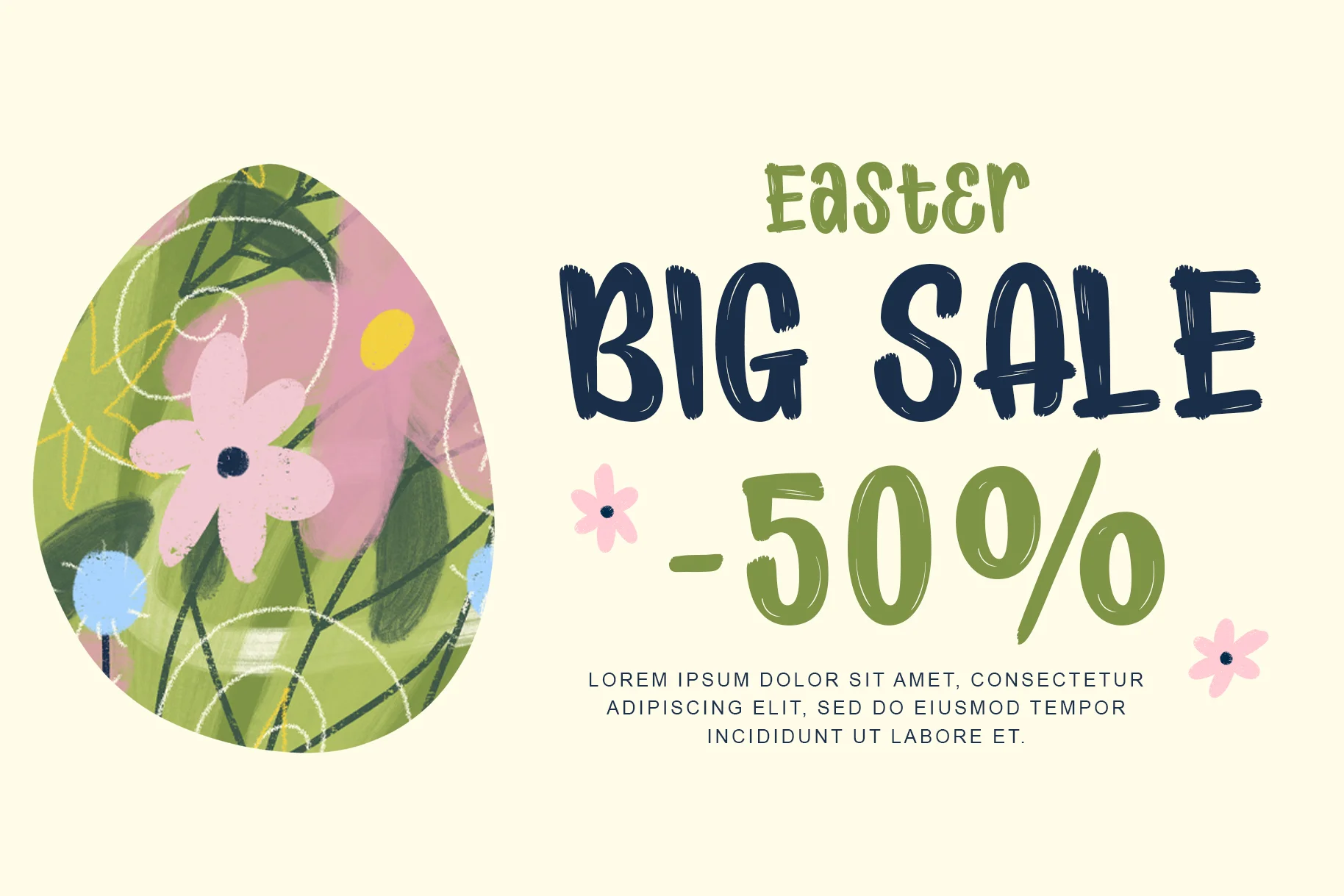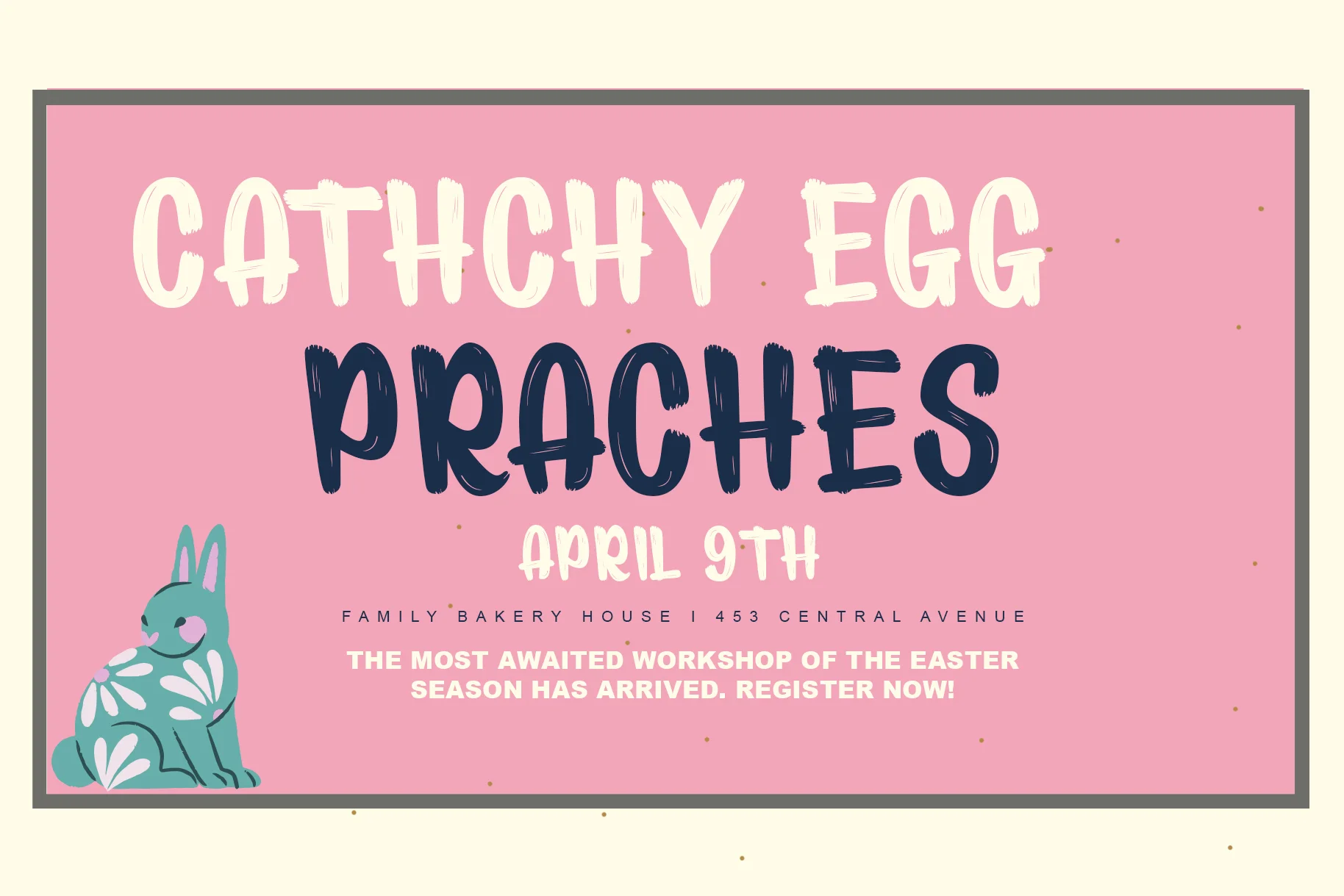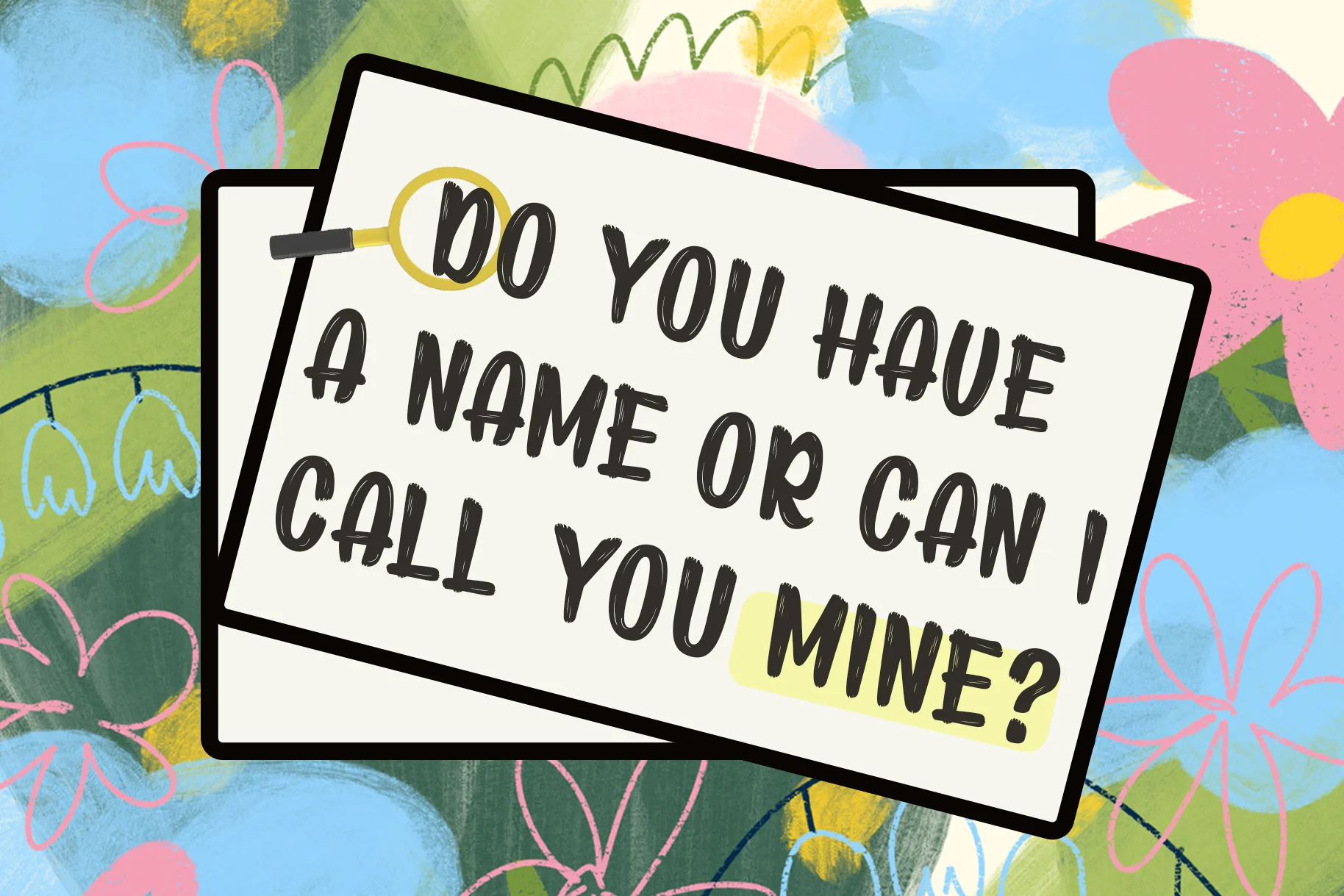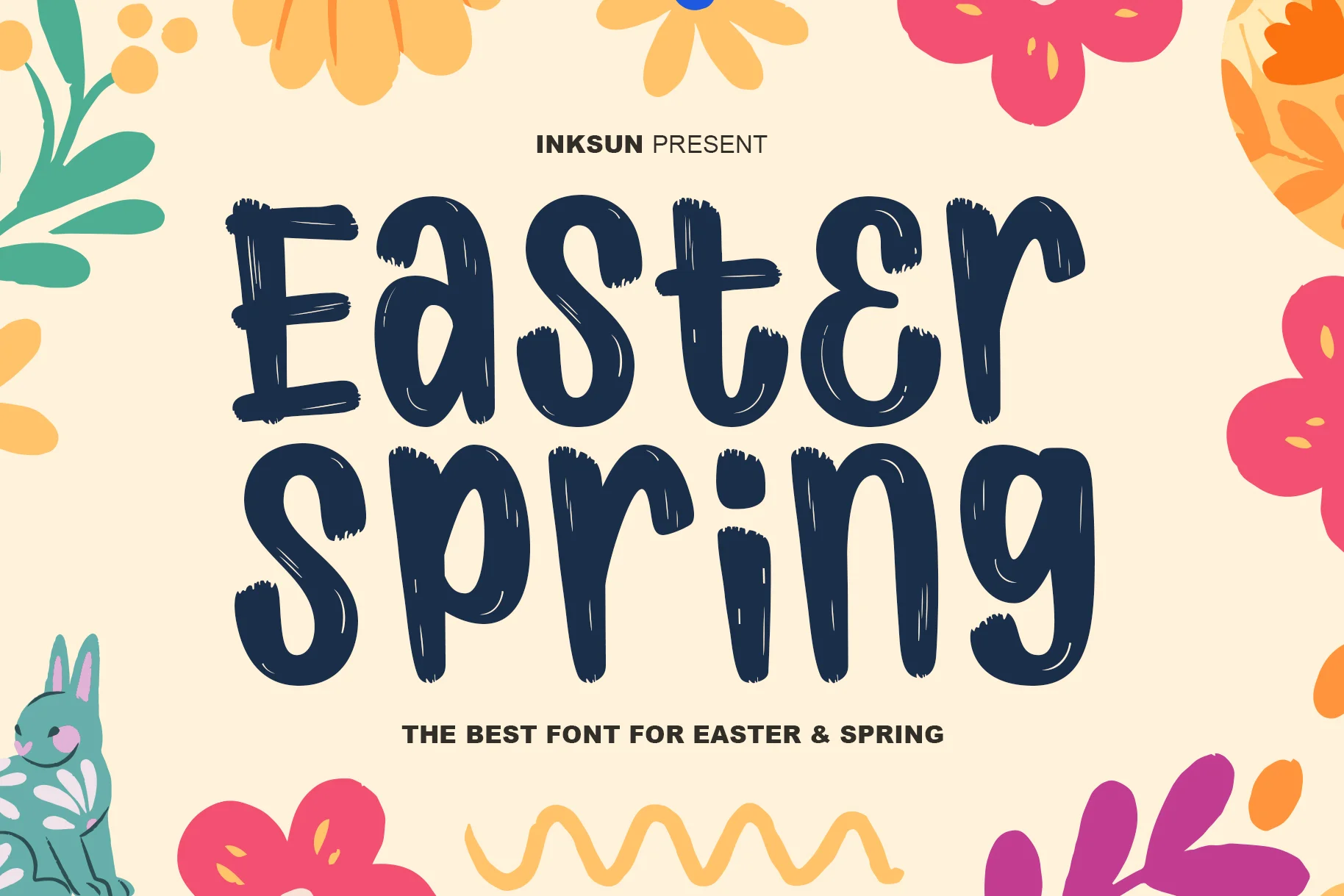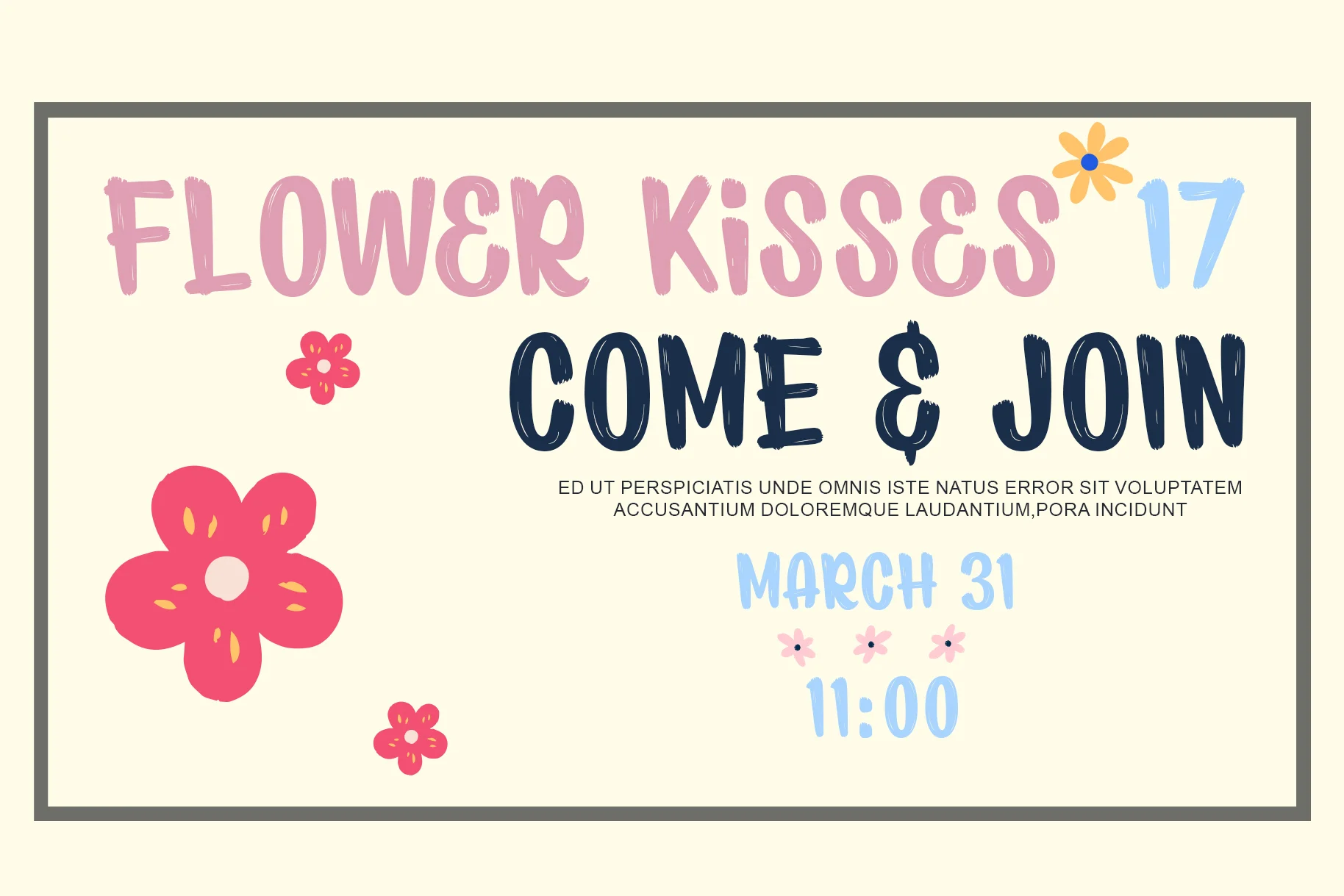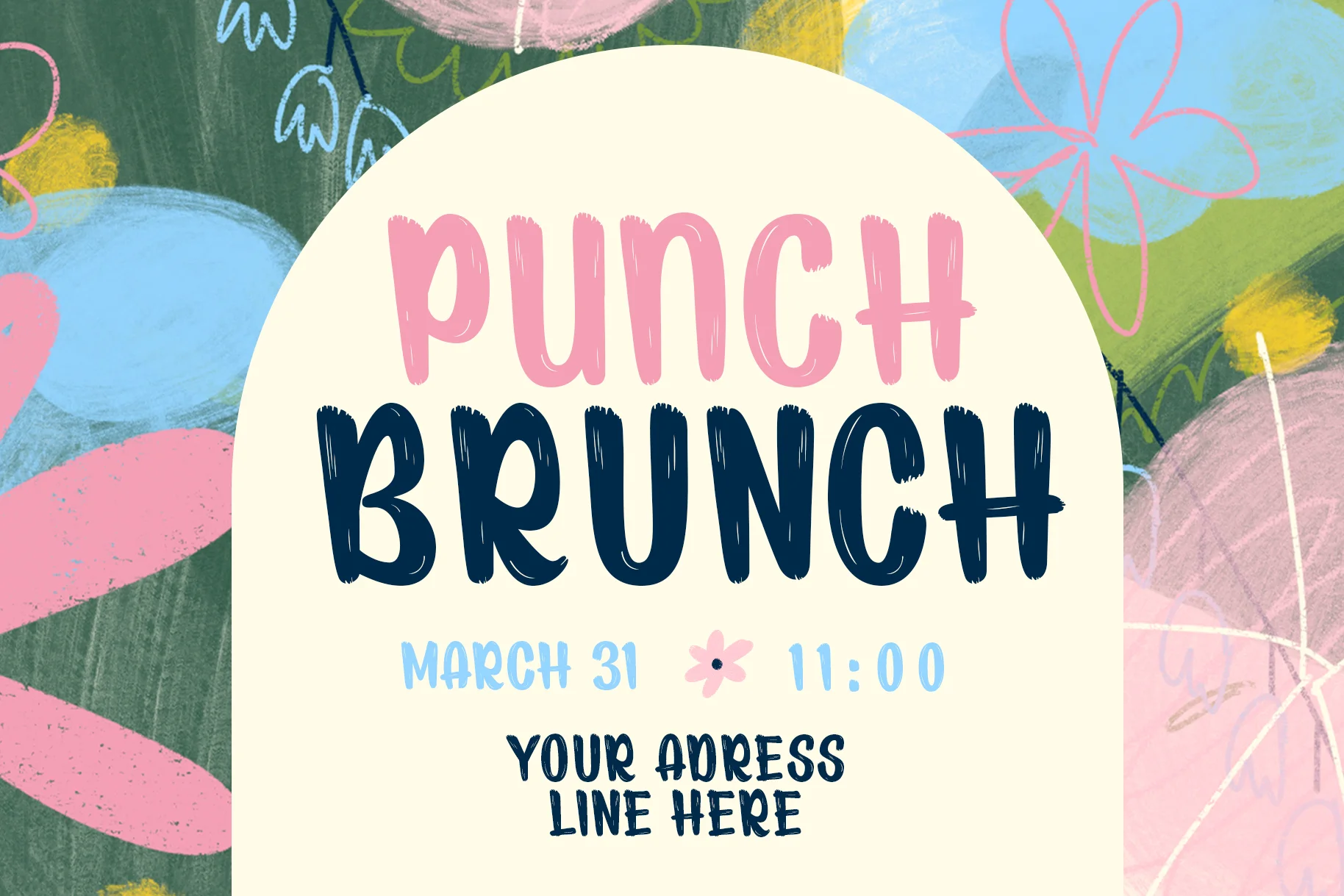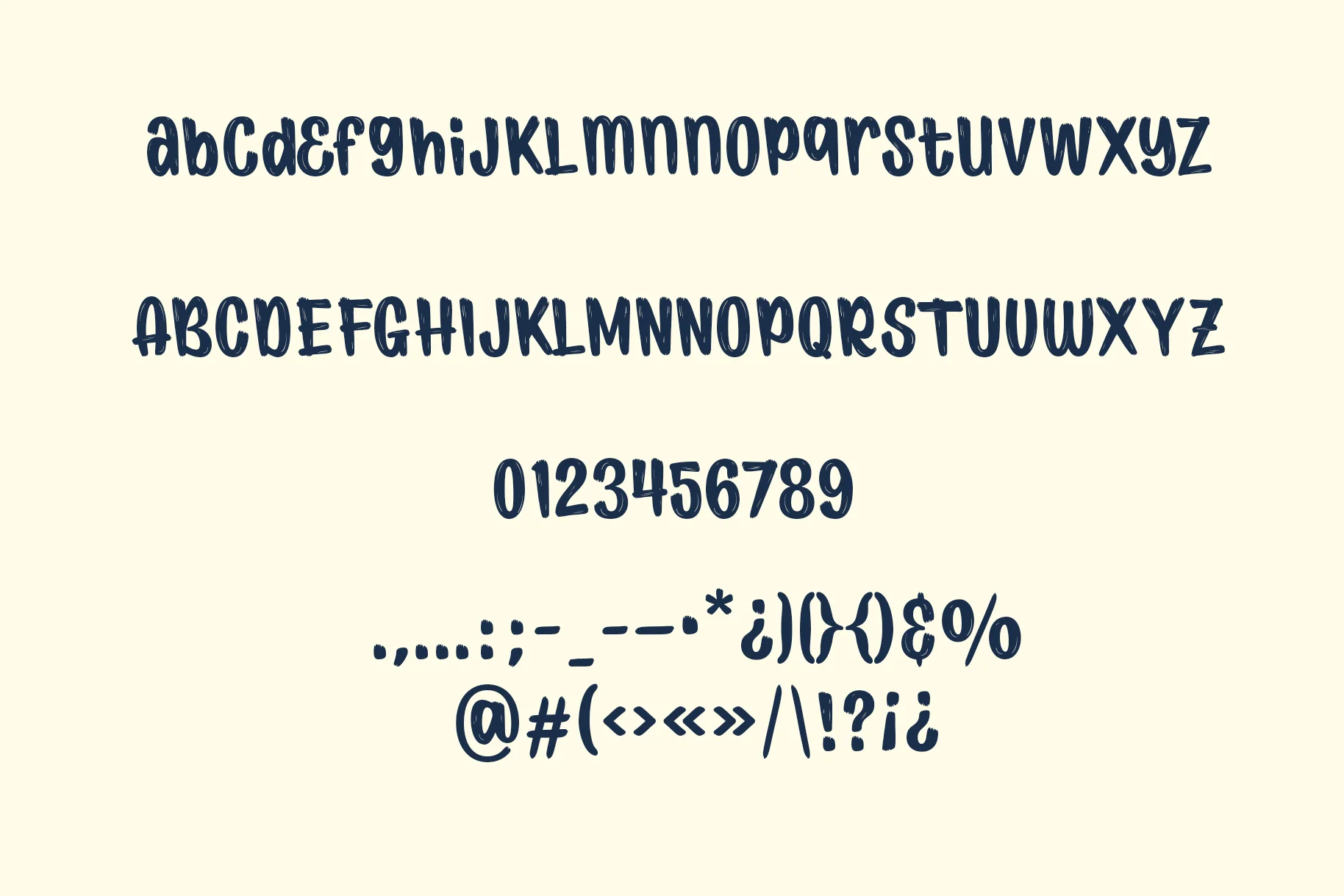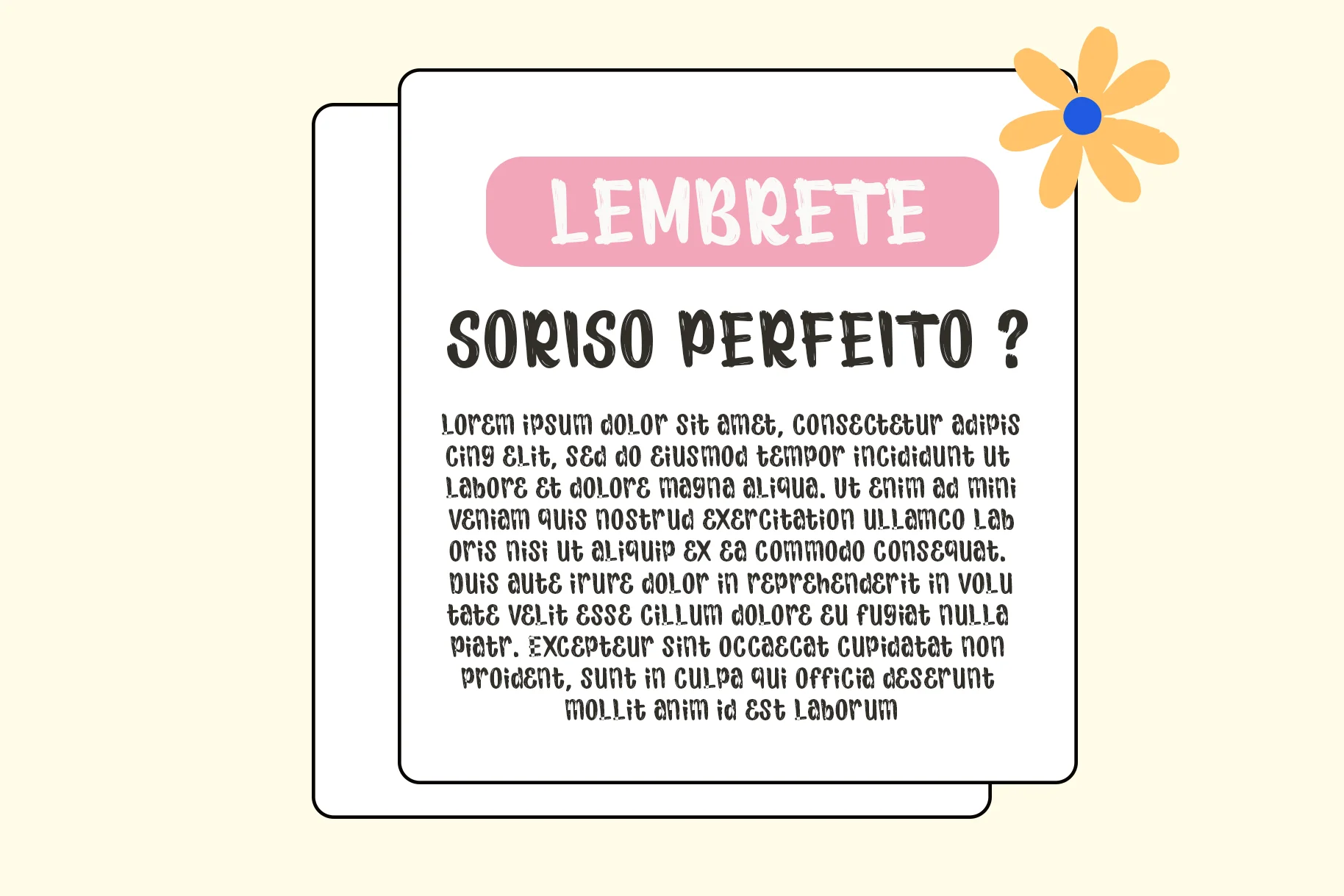
Easter Spring
Easter Spring is a highly playful, bold, and rounded display font, specifically designed to bring the joy and cheer of the spring season into your designs. Easter Spring will perfect for many project: book, magazines, logo, branding, photography, quotes, blog header, poster, advertisements, etc.